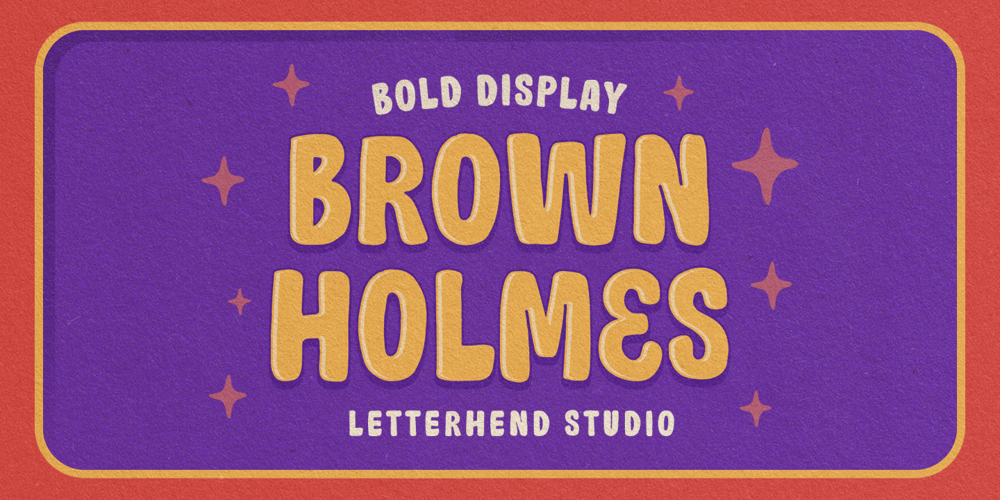
Brown Holmes Font Family was designed by Hendry Juanda and published by Letterhend. Brown Holmes contains 1 styles and family package options. Introducing, Brown Holmes – A fun and playful bold display font. The bulky shape make this font looks appealing, especially when it comes to casual fun theme design. This font also perfectly made to be applied especially in logo, and the other various formal forms such as invitations, labels, logos, magazines, books, greeting / wedding cards, packaging, fashion, make up, stationery, novels, labels or any type of advertising purpose.Features : numbers and punctuation multilingual alternate (uppercase & lowercase) & ligature PUA encoded We highly recommend using a program that supports OpenType features and Glyphs panels like many of Adobe apps and Corel Draw, so you can see and access all Glyph variations.